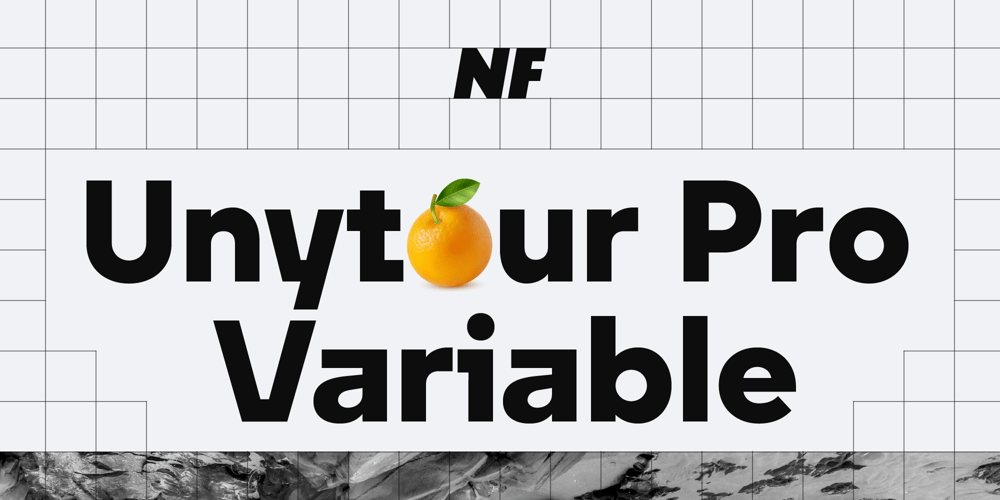
Unytour Pro Variable Font Family was designed by Nikolay Savchuk and published by NicolassFonts. Unytour Pro Variable contains 1 styles and family package options. Unytour Pro Variable font – a dynamic addition to the renowned Unytour Pro font family. Variable font includes 3 subfamilies: Condensed, Narrow, and Normal. With its variable font technology, Unytour Pro Variable font empowers designers with flexibility. Seamlessly adjust weight, width, and slant parameters to achieve the perfect balance and aesthetic harmony for your projects. The font includes alternate glyphs for characters such as A, G, I, R, a, l, t, y, ensuring that your typography stands out with unique flair. Additionally, a rich array of OpenType features further enhances your creative toolkit. Unytour Pro Variable features excellent legibility for print, as it does for reproduction on TV screens and more.